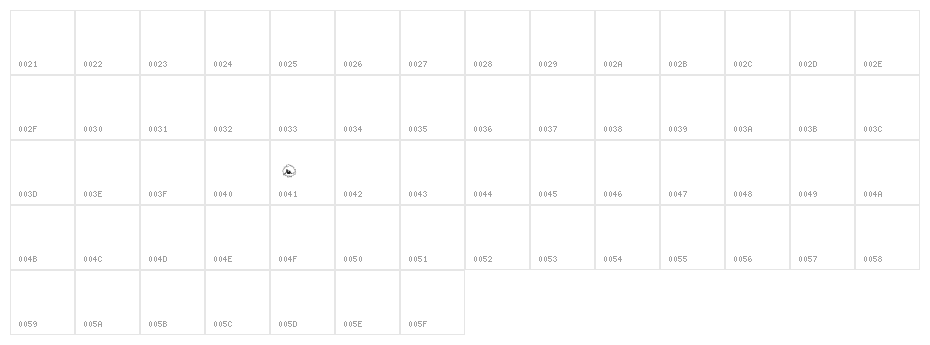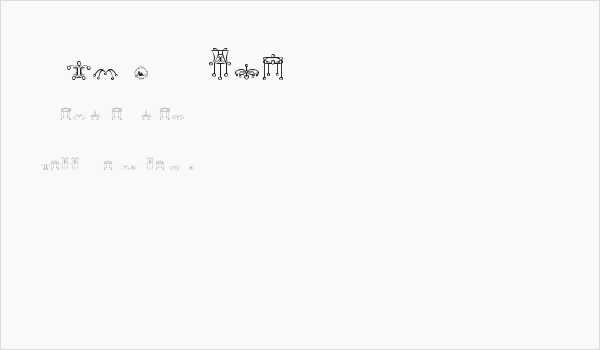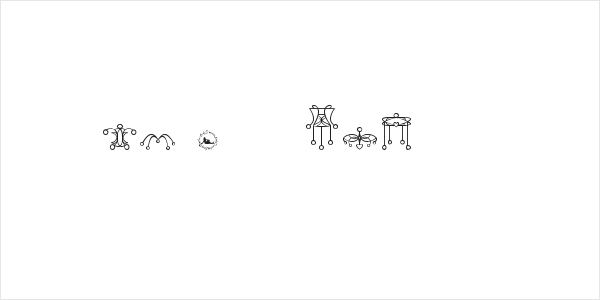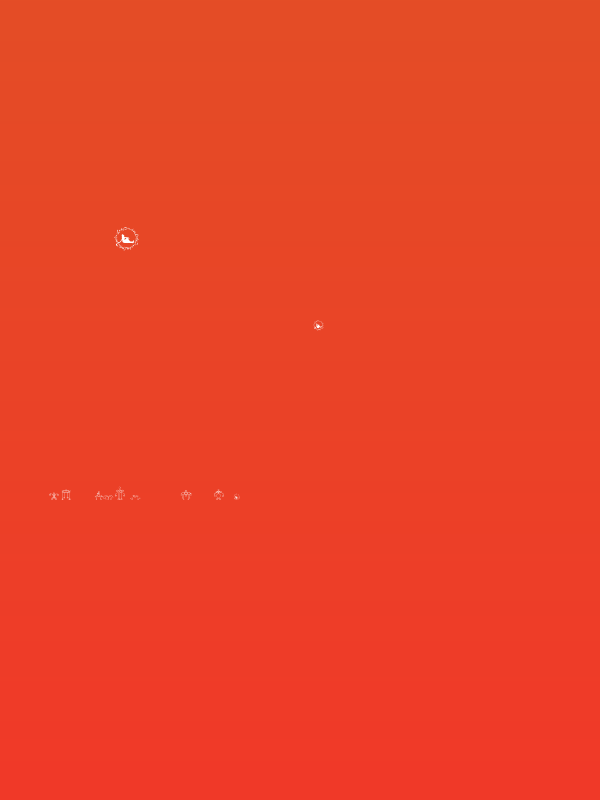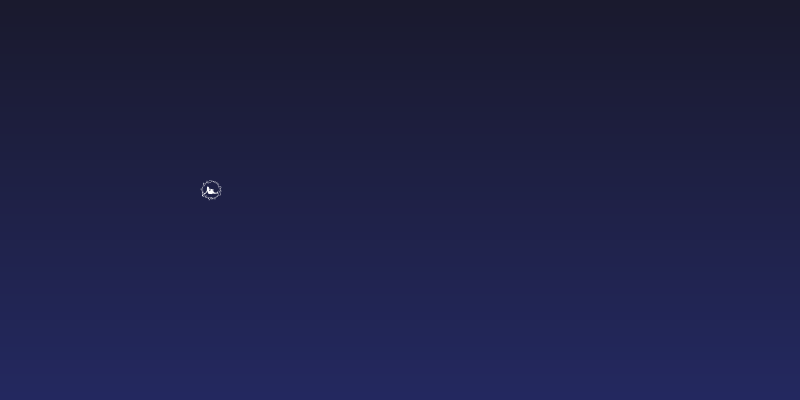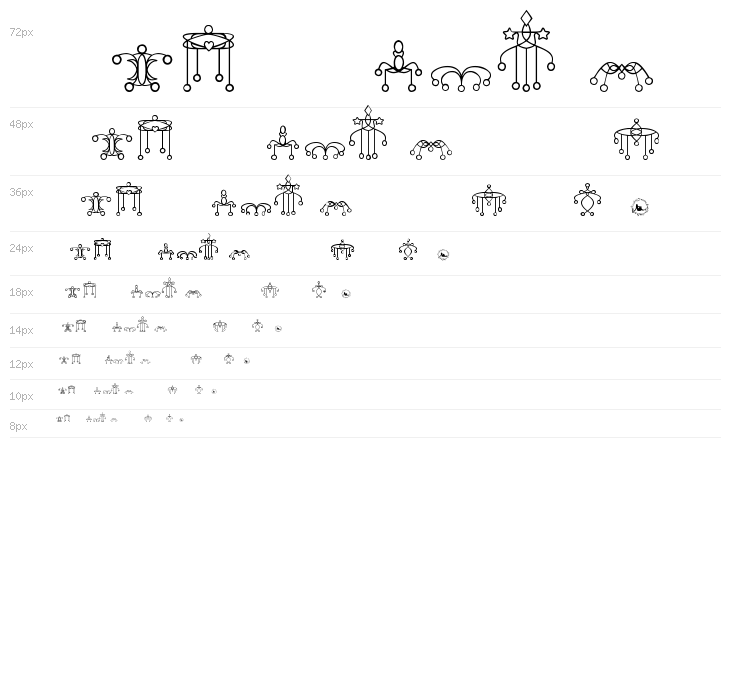
Charm Holders LT Font
Charm Holders LT Description
This design features a series of intricate, decorative symbols that resemble abstract charms or talismans. Each character is composed of geometric shapes such as circles, lines, and dots, arranged in a symmetrical and balanced manner. The overall appearance is whimsical and artistic, with a playful yet sophisticated aesthetic. The symbols have a uniform line thickness, contributing to a cohesive look across the set. These designs are not traditional alphanumeric characters but rather unique glyphs that could be used for artistic or decorative purposes.
| Use Case | Logos, Decorative prints, Artistic projects |
| Proposed Projects | Ideal for use in artistic projects, decorative prints, jewelry design, or as unique graphic elements in branding. |